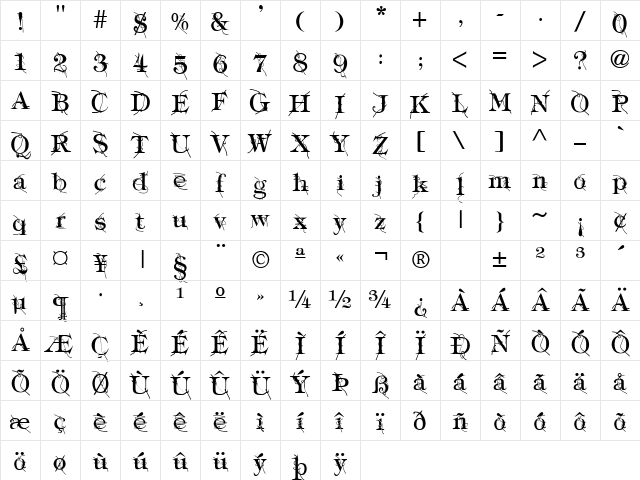
Complete Typography ties Regular glyph index. Displaying only characters natively supported by Typography ties Regular font.
Typography ties is a composed and adaptable typeface that performs quietly and consistently across a wide range of design contexts.